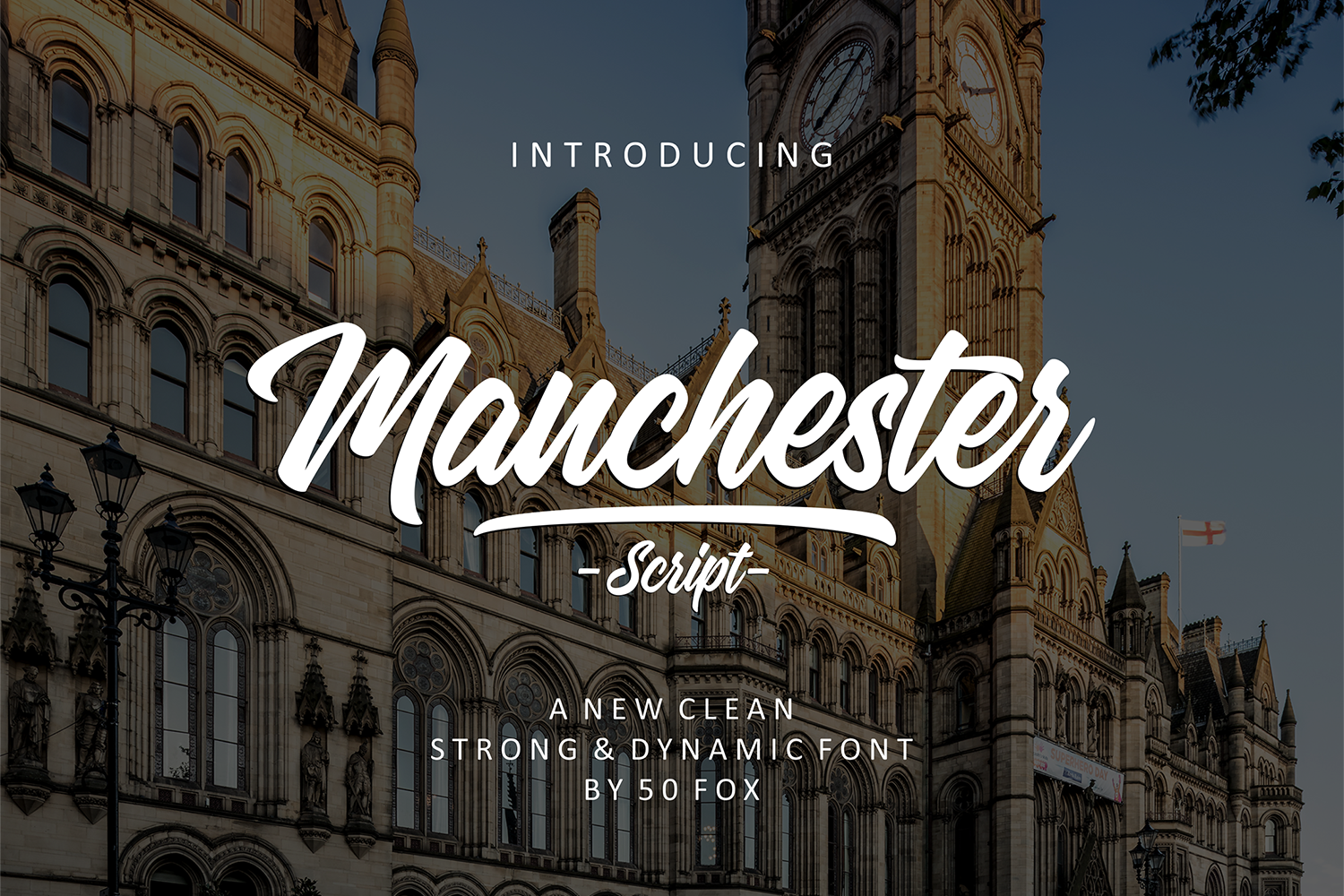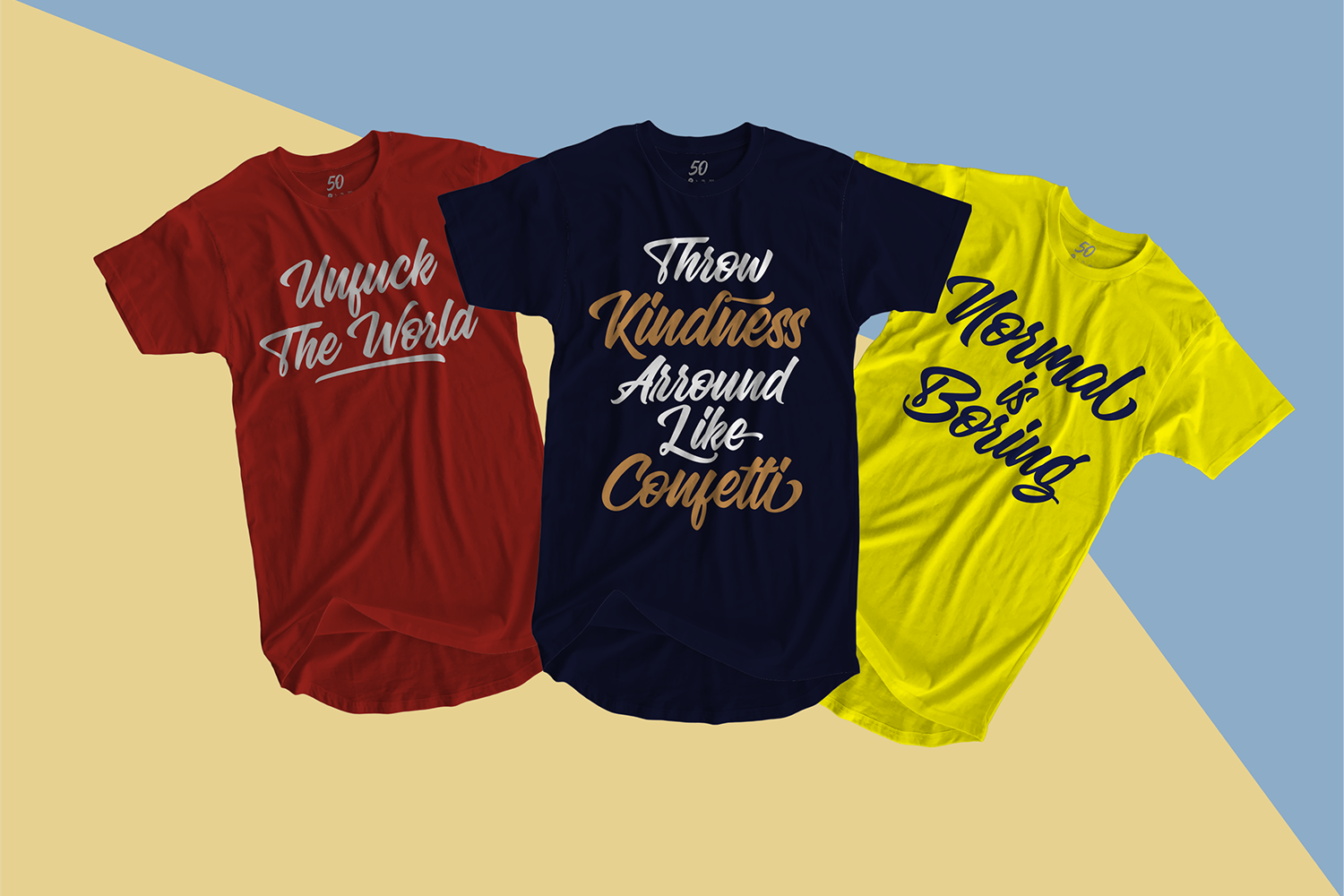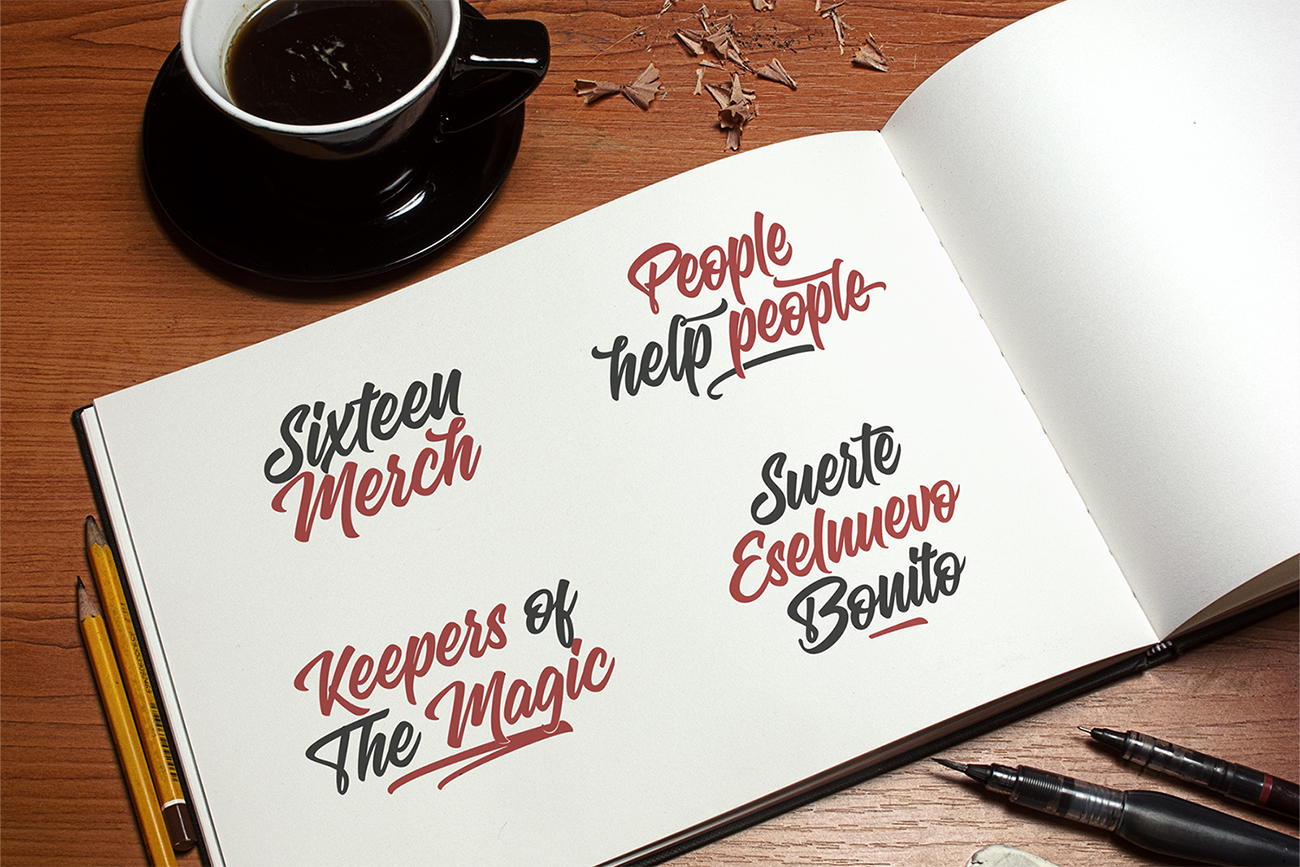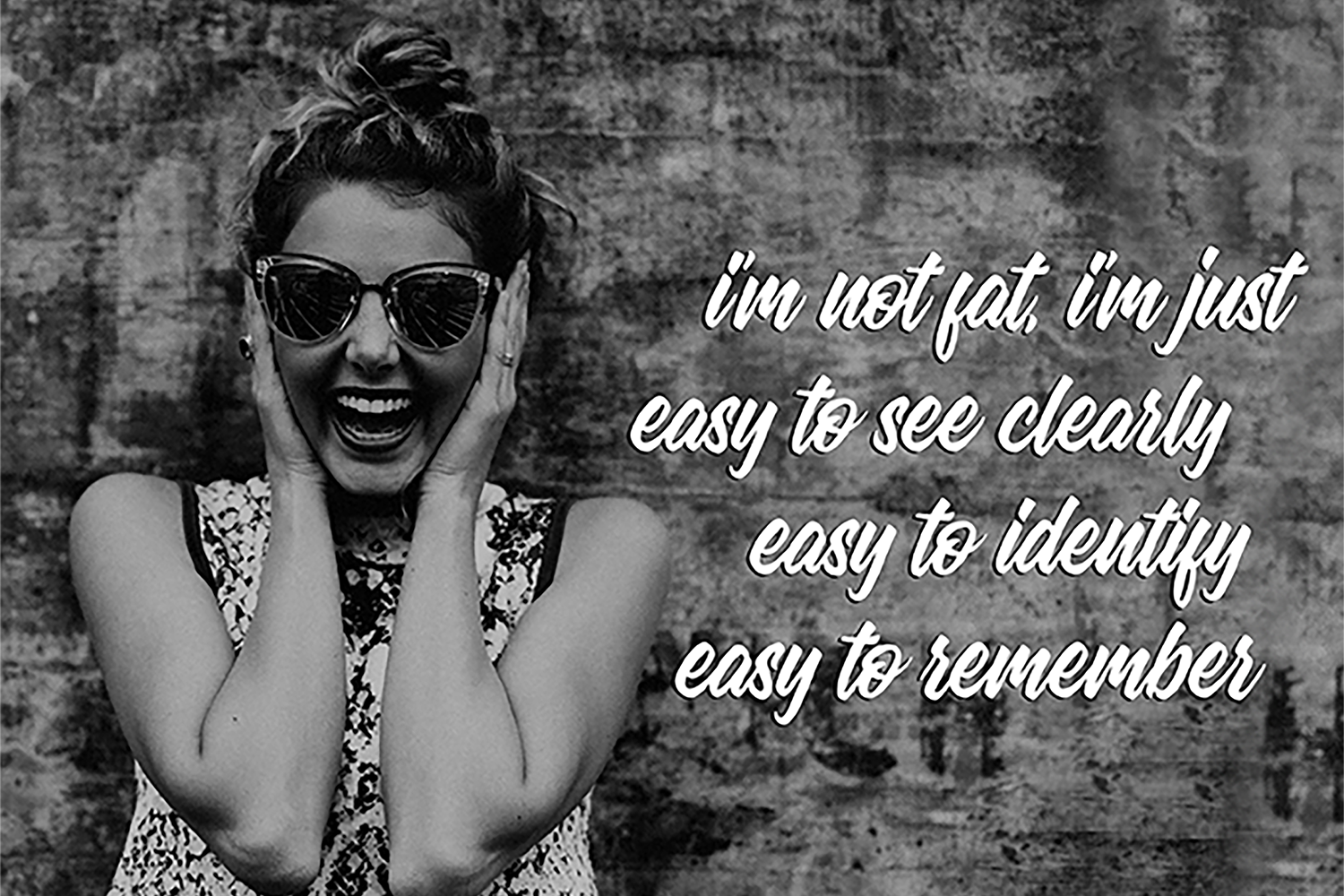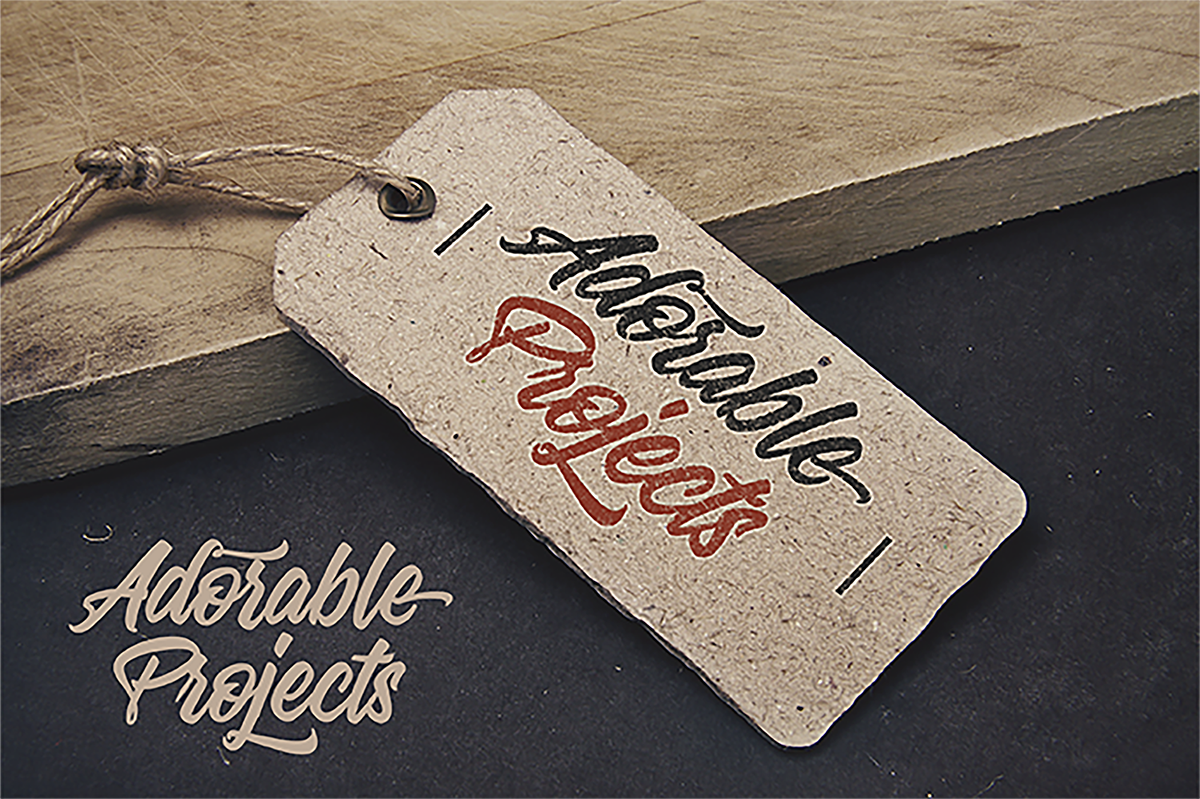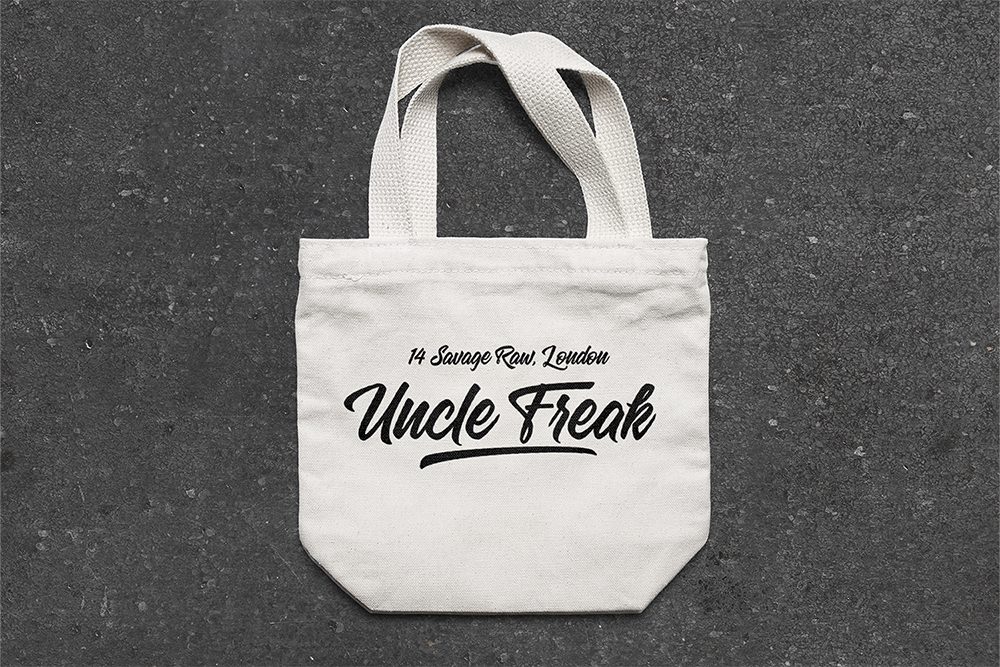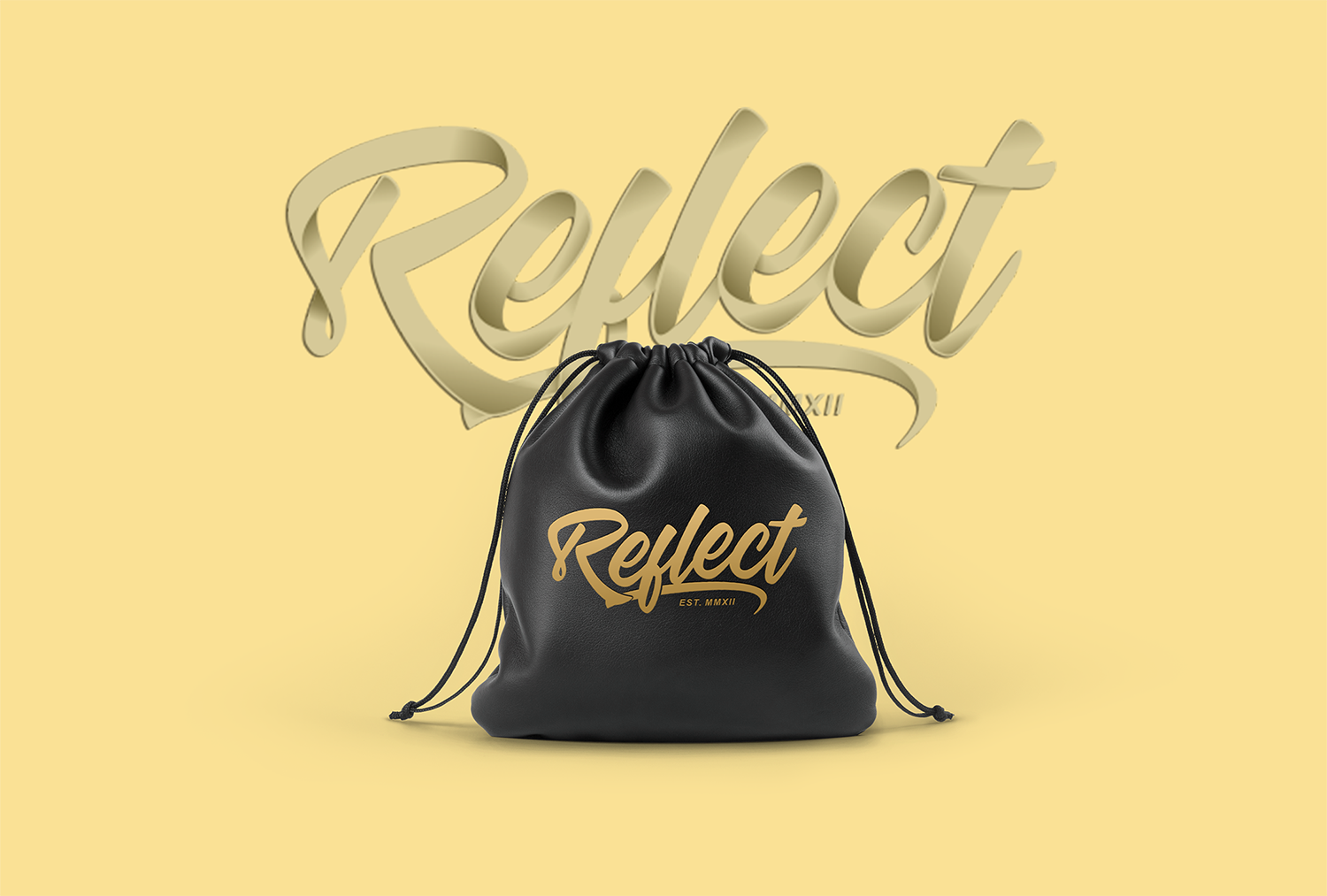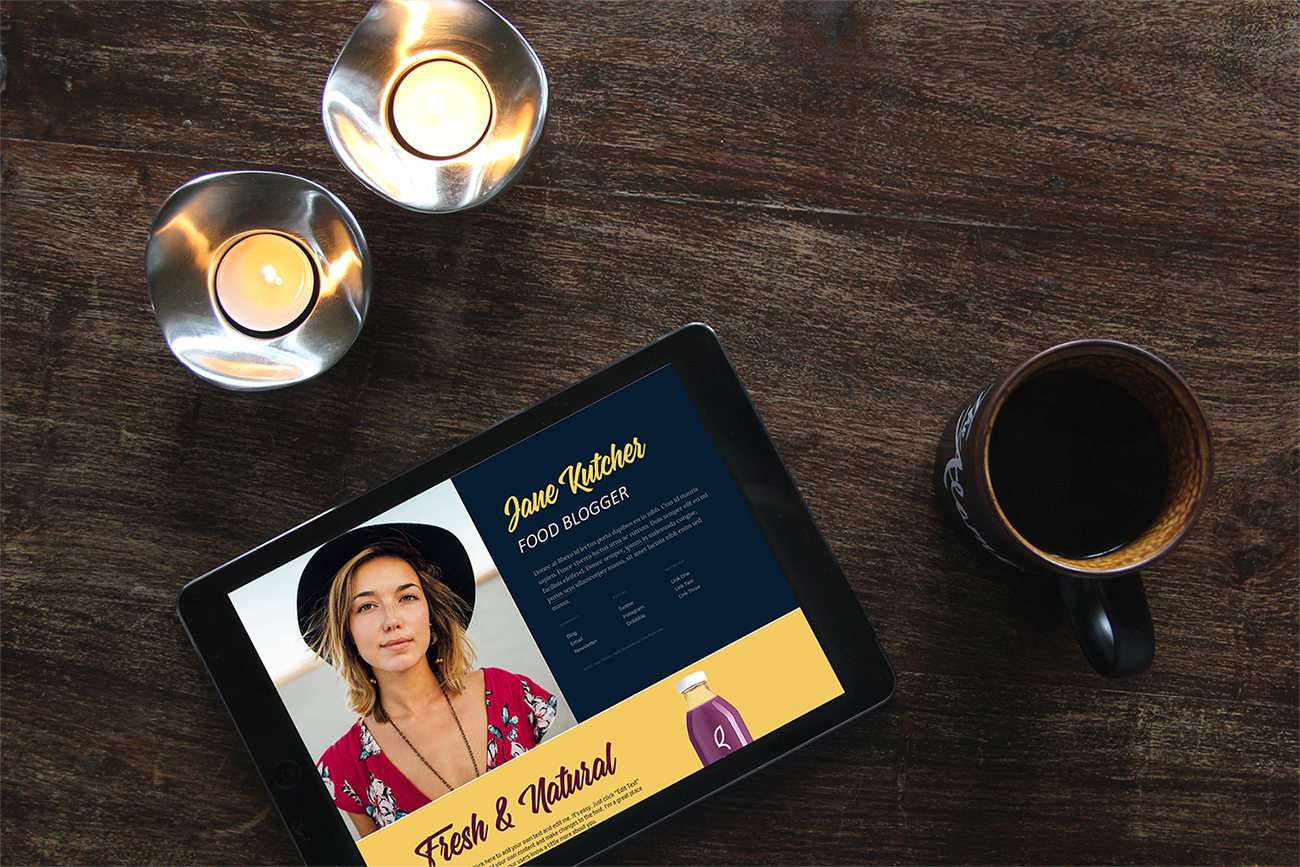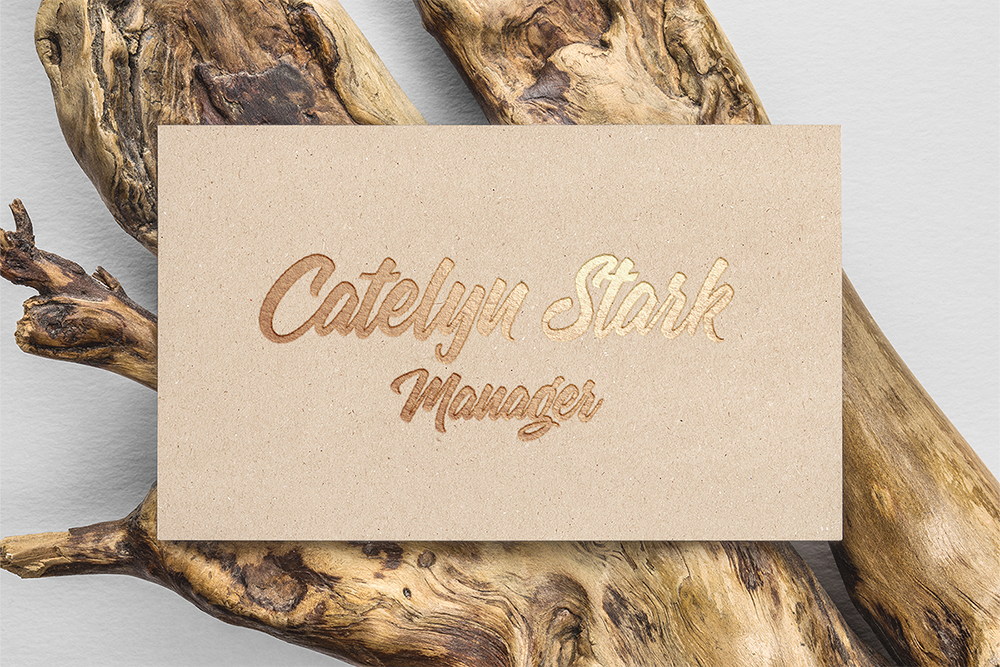
Manchester Font
About Manchester Font
Manchester Script is a hand-lettered font that comes with a charming identity. This font also has great movement with clean look. Manchester comes with many variations and swash bonuses!